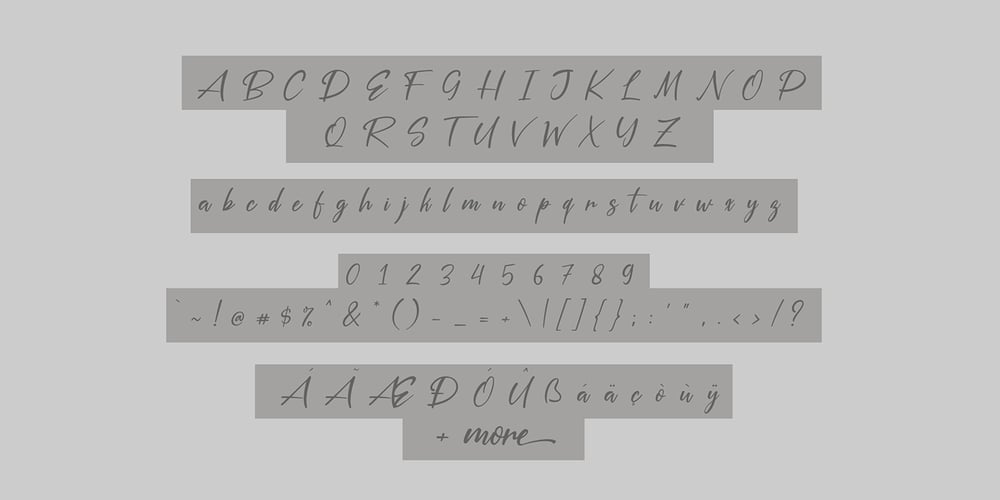
Silver Pen Font Family was designed by Syaf Rizal and published by Khurasan. Silver Pen contains 1 styles and family package options. Introducing the Silver Pen script, a font that is very fresh and unique style handmade. Silver Pen script is perfectly suited to logos, signature, stationery, posters, apparel, branding, wedding invitations, cards, tagline, layout design, and much more.